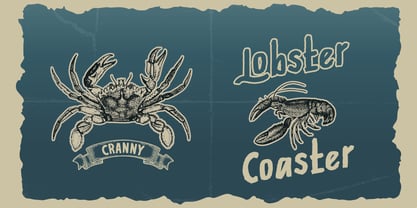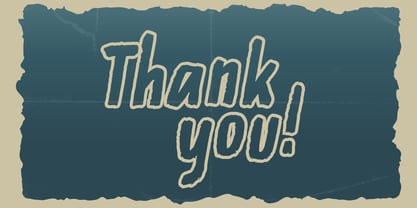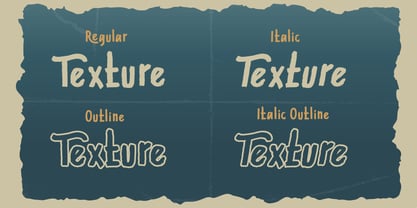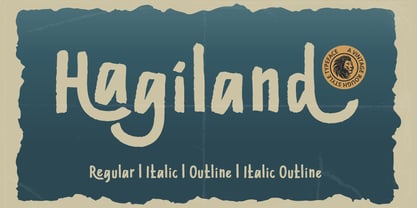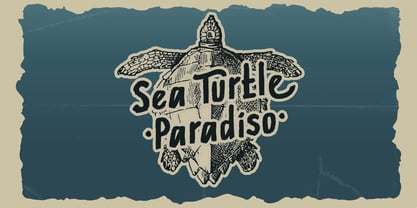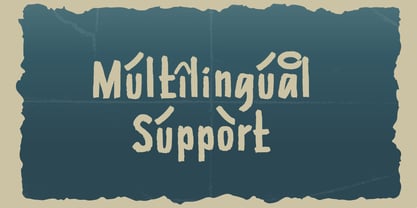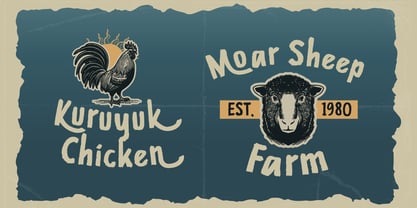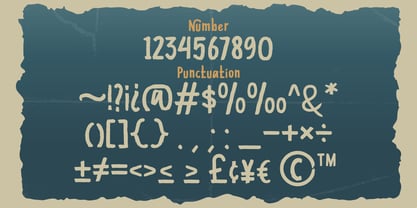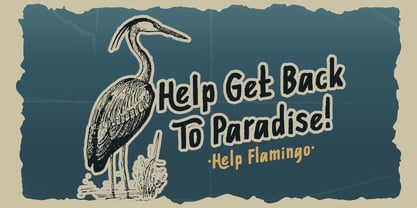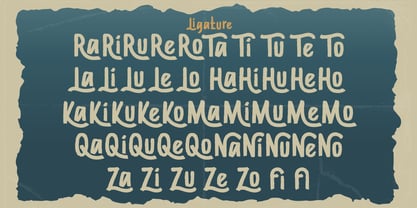
Hagiland
by Attype Studio
The Hagiland Font Family was designed by Fadli Ramadhan Iskandar and published by Attype Studio. Hagiland contains 4 styles and family package options. More about this family
Hagiland - Rugged Retro Font
Hagiland carries a distressed, hand-carved edge built for retro badge design.
Rough outlines and worn texture give each letter the weight of a vintage stamp pressed into wood or tin.
The family holds four styles: Regular, Italic, Outline, and Italic Outline, backed by an extensive set of ligatures and stylistic alternates for genuine hand-lettered variation.
Seafood restaurant and coastal business badges, farm and ranch branding with a vintage stamp feel, wildlife or conservation poster design, craft beverage and product packaging labels, retro-style logo design for outdoor and nature brands, vintage stamp or seal-style illustrations, and hand-lettered quote or sign design with a worn, rustic finish.
- Hagiland Font Family
- Ligatures
- Stylistic Alternates
- Multilingual, US Roman, Latin 1 Support
Designers: Fadli Ramadhan Iskandar
Foundry: Attype Studio